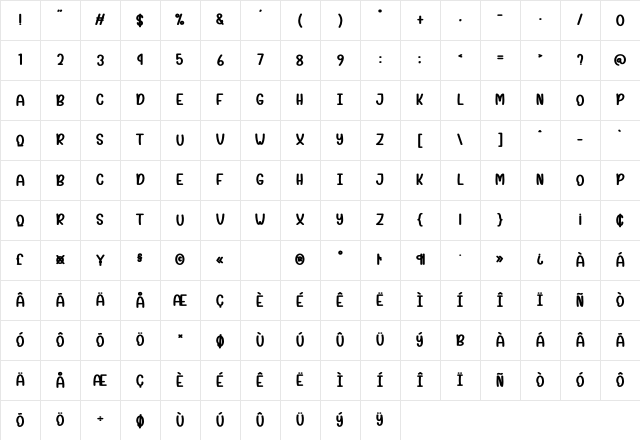
The Scary Regular
Design Context for The Scary
The Scary carries an unsettling edge - its distorted letterforms are built to unsettle, perfectly suited to horror, Halloween, and dark creative work.
Font Pairing: Pair with a clean neutral sans-serif for body copy to let The Scary's character lead without overwhelming the composition.
Pro Tip: Use The Scary at larger display sizes for maximum impact. Consider generous tracking to let the disturbing character of each letterform breathe.